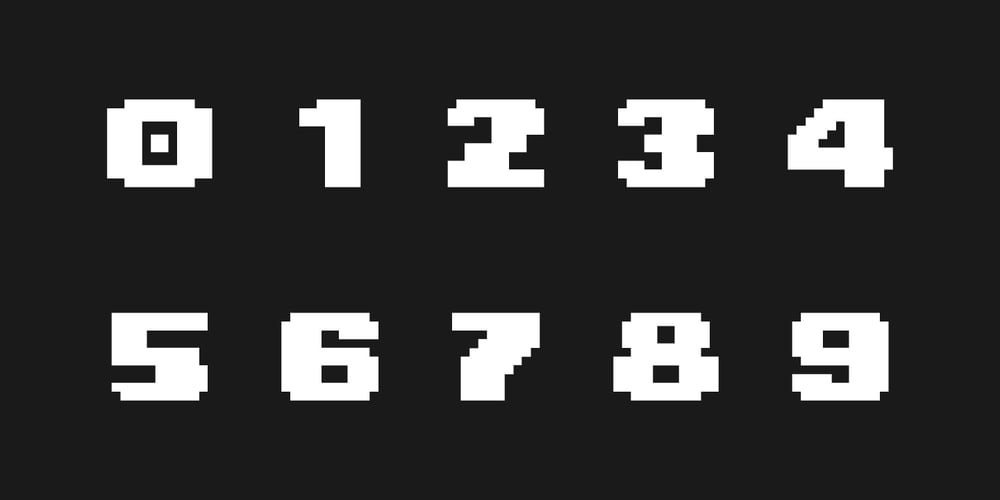
Level Up
Level Up font
Level Up Font Family was designed by Oleg Stepanov and published by Oleg Stepanov. Level Up contains 1 styles and family package options. Geometric retro-digital font. Extented latin character set.